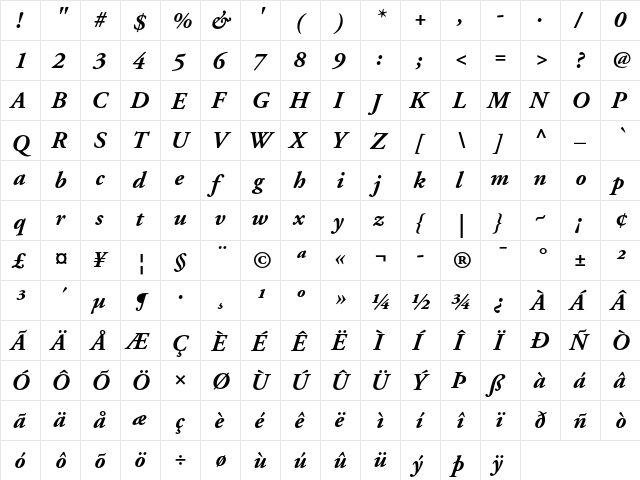
Adobe Garamond Bold Italic Font Preview
Adobe Garamond Bold Italic
Design Context for Adobe Garamond Typeface
Adobe Garamond is a composed and adaptable typeface that performs quietly and consistently across a wide range of design contexts. Its italic angle brings a sense of urgency and motion to the letterforms. Its bold stroke weight gives it real presence on the page.
Pro Tip: Try Adobe Garamond for annotation and caption copy alongside an upright companion — the contrast in angle creates a dynamic but ordered typographic system.